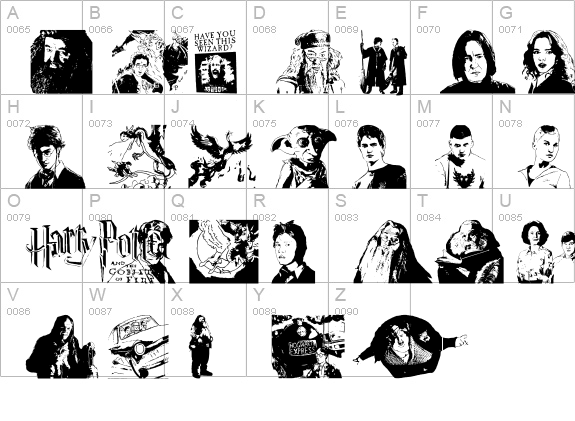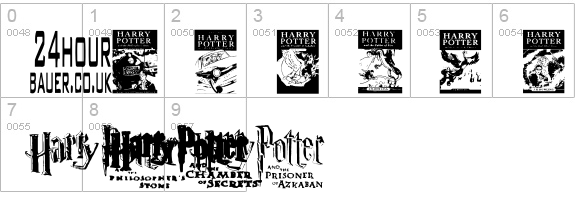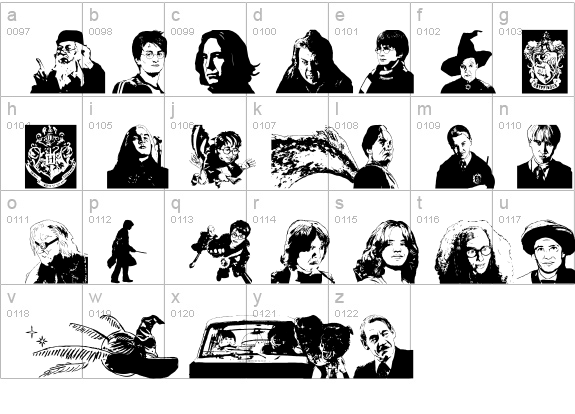
Harry Potter and the Dingbats Font Details
Harry Potter and the Dingbats font is an enchanting and whimsical typeface that captures the essence of the magical world of Harry Potter. With its intricate and spellbinding design, this font is perfect for adding a touch of wizardry to any project. Featuring a range of iconic symbols and images from the beloved Harry Potter series, the Dingbats font allows fans to incorporate their favorite elements into their designs. Whether you're creating invitations for a Harry Potter-themed party, designing a magical logo, or simply adding a touch of Potterverse charm to your website, this font is sure to cast a spell on your audience. What makes Harry Potter and the Dingbats font even more magical is that it is freely available to download at FontsMarket.com. Yes, you read that right - you can bring the magic of the wizarding world into your designs at no cost. This means that you can unleash your creativity without any limitations or restrictions. With its wide range of characters and symbols, Harry Potter and the Dingbats font allows you to effortlessly create stunning designs that transport your audience to the enchanting world of Harry Potter. From the lightning bolt scar of the Boy Who Lived to the iconic Hogwarts crest, this font is a treasure trove of magical elements that will bring your designs to life. So, if you're a die-hard Harry Potter fan or simply someone who appreciates the whimsy and charm of the wizarding world, look no further than Harry Potter and the Dingbats font. Download it for free at FontsMarket.com and let your imagination take flight on the wings of magic.